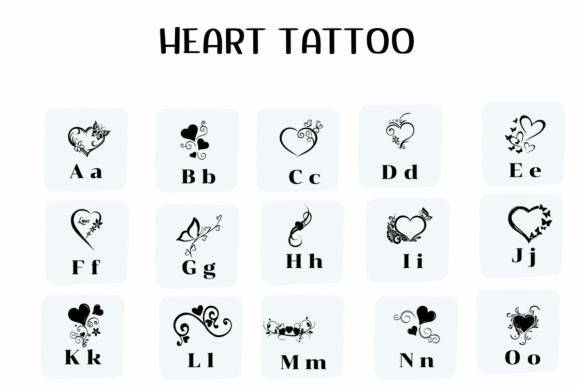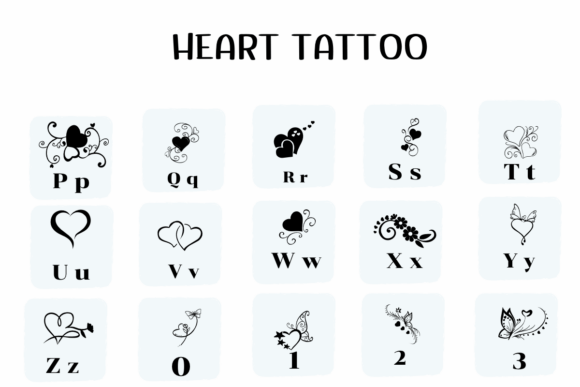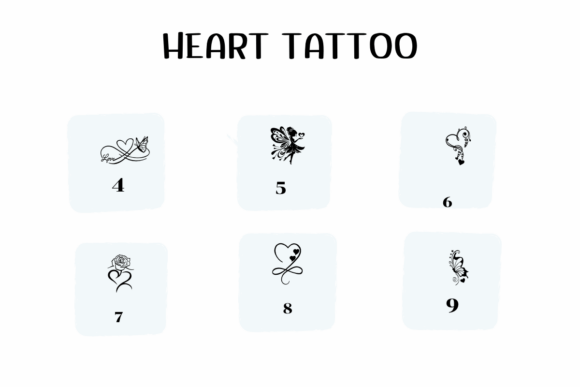
Introduction to Heart Tattoo Font
Remember the moment you finally found the perfect font for your wedding invitation, and it made all the difference in bringing your creative vision to life? For designers and crafty individuals, discovering the right font can be a game-changer. This is exactly what happens when you come across the Heart Tattoo Font, a stunning dingbats font with a sketched style that adds a touch of elegance to any project.
As a valuable design resource, the Heart Tattoo Font is perfect for designers looking to elevate their creative projects. With its high-quality design and transparent background, this font is ideal for DIY crafts, decorations, logos, and other design ideas. Plus, it’s free to download, making it an excellent addition to any designer’s toolkit.
Key Features of Heart Tattoo Font
- High-quality design resource for creative projects, suitable for various applications including tattoo designs, artwork, and more.
- Unique, hand-drawn design elements that can be used to create intricate and personalized tattoo designs, logos, and other artwork.
- Perfect for designers, artists, and individuals looking for a free and versatile design resource for their creative projects.
- Can be used as a design element in various creative projects, including digital art, print design, and even web design.
Honest Review: Heart Tattoo Font
I recently stumbled upon the Heart Tattoo Font, and I must say it’s a great addition to any design resource collection. The font is free to download, which is a huge plus for designers working on creative projects with limited budgets.
One of the things that works well with this font is its high quality. The lines are crisp, and the design is clean and elegant. It’s perfect for creating eye-catching titles or headings for your design projects.
The font also features a transparent background, making it easy to overlay on any image or background. This flexibility is a huge advantage for designers who want to create unique and creative visuals.
- Clean and elegant design
- May not be suitable for very formal or corporate designs
- Can be a bit too playful for some projects
Overall, I’m quite impressed with the Heart Tattoo Font. It’s a great addition to any design resource collection, and it’s perfect for designers working on creative projects. With its high-quality design, transparent background, and free download, it’s a must-have for any designer looking to add a unique touch to their projects.
For the most out of the Heart Tattoo Font, use it in creative projects that require a touch of elegance and sophistication. Common use cases include wedding invitations, anniversary cards, and valentine’s day designs. Experiment with different font sizes, colors, and styles to add a personal touch to your design.